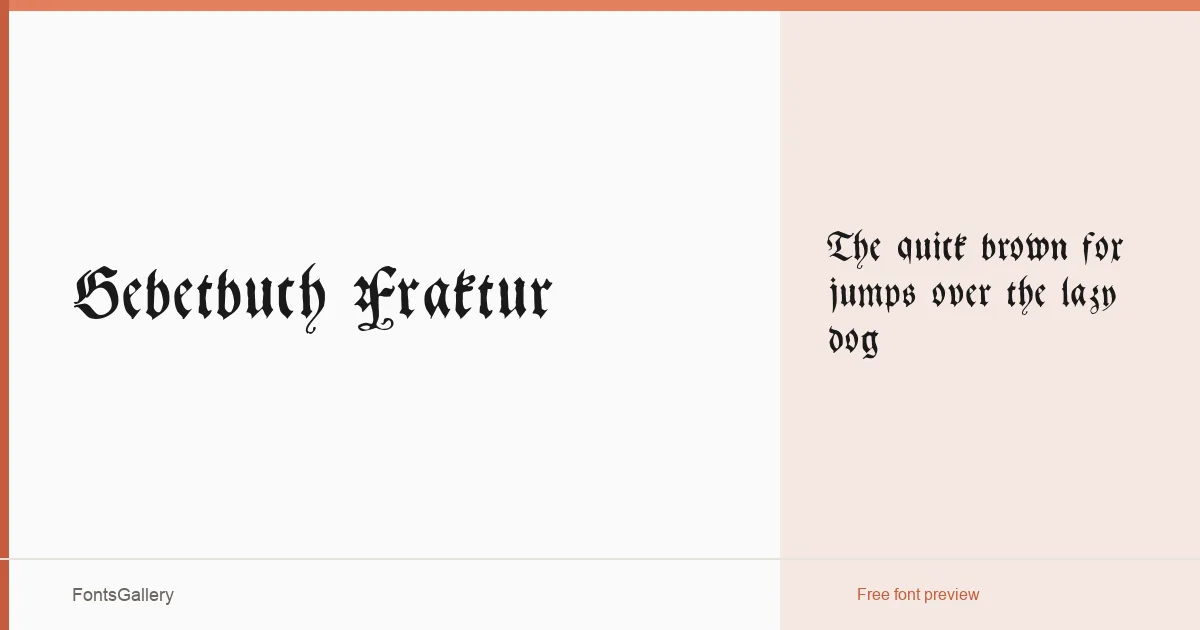
About Gebetbuch Fraktur Font
Gebetbuch Fraktur is a striking blackletter typeface published by Typographer Mediengestaltung that channels the timeless tradition of classic Fraktur script. With its elegant and bold character, this typeface carries a distinctly vintage quality that feels both authoritative and refined. It is a compelling choice for designers seeking to evoke historical gravitas and old-world sophistication in their work.
True to the blackletter category, Gebetbuch Fraktur features the dramatic thick-and-thin strokes, angular forms, and ornate detailing that define classic Fraktur letterforms. The typeface balances boldness with elegance, giving each character a strong visual presence while maintaining the structured, ceremonial quality associated with vintage blackletter design. Its classic proportions make it instantly recognizable and deeply expressive.
Gebetbuch Fraktur excels in high-impact design applications such as logos, posters, book covers, branding materials, and certificates, where its commanding presence can take center stage. For versatile and effective font pairings, consider combining it with the clean, neutral lines of Helvetica to create a striking contrast, or with Aresink for a complementary stylistic harmony.